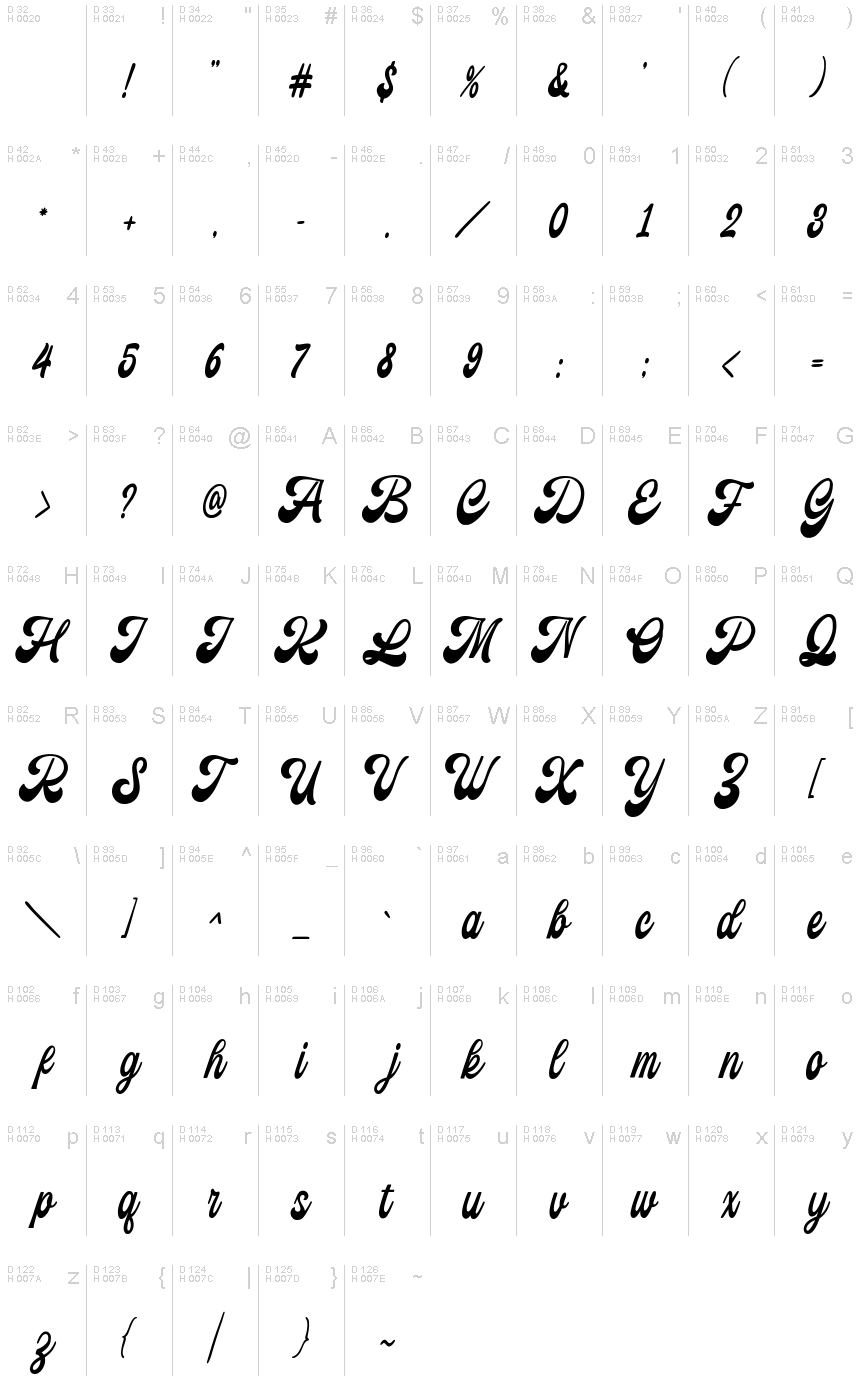
Moswald Regular
Moswald font, designed by Damarletter, embodies a captivating blend of smooth brush strokes and retro flair. Its bold presence commands attention while exuding a playful elegance that makes it visually striking. The flow of the letters showcases an effortless harmony, where each character dances across the page with personality and charm.
Ideal for branding projects, packaging designs, or any creative endeavor seeking to evoke a sense of nostalgia while maintaining modernity, Moswald elevates the aesthetic appeal of any layout. Whether featured prominently in headlines or delicately woven into subtler contexts, this font captures the essence of artistic expression with its unique character and strong visual impact.